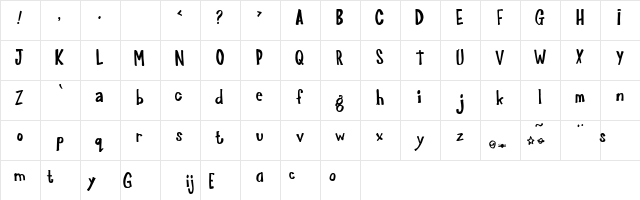
Joinks! Regular Font Preview
Joinks! Regular
Design Context for Joinks! Typeface
Joinks! is a composed and adaptable typeface that performs quietly and consistently across a wide range of design contexts.